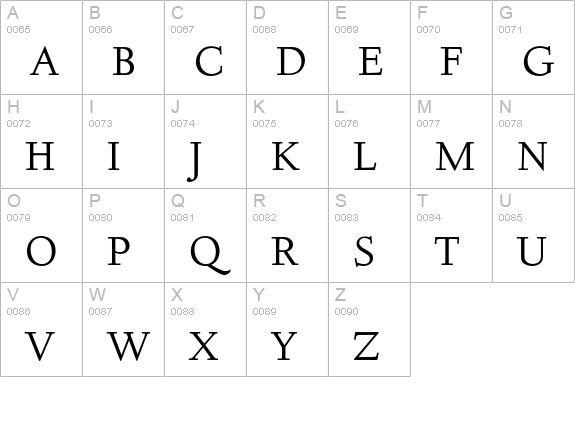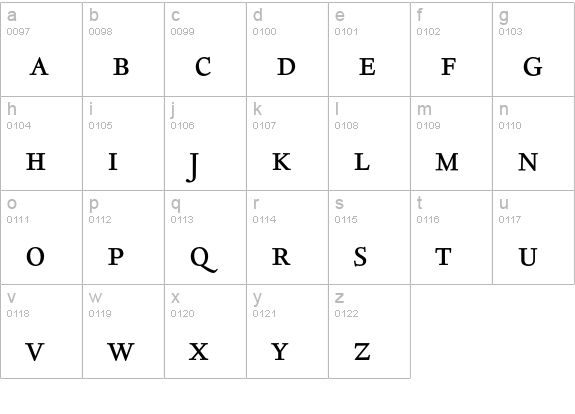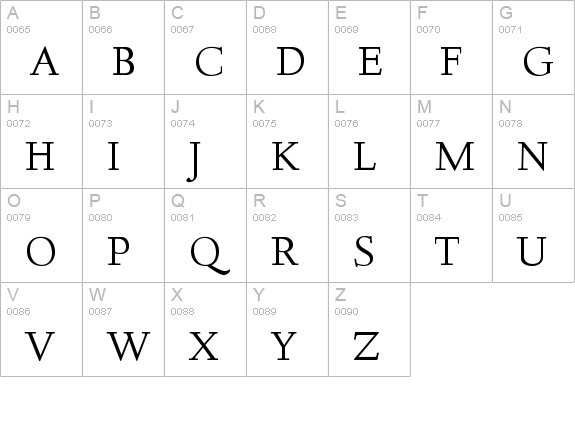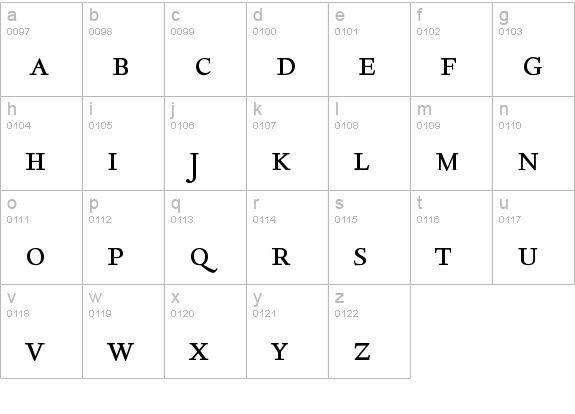
Deepdene Expert BQ Roman Font Details
Deepdene Expert BQ Roman is a timeless and elegant font that exudes sophistication and professionalism. Its classic serif design makes it perfect for projects that require a touch of refinement and style. This font is versatile and can be used for a wide range of applications, from branding and advertising to editorial design and more. What sets Deepdene Expert BQ Roman apart is its attention to detail and impeccable craftsmanship. The clean lines and balanced proportions of each letter make it a pleasure to read and a standout choice for any project. The best part? Deepdene Expert BQ Roman is available for free download at FontsMarket.com, allowing you to access this premium font without breaking the bank. Enhance your designs with the timeless beauty of Deepdene Expert BQ Roman and make a lasting impression on your audience.